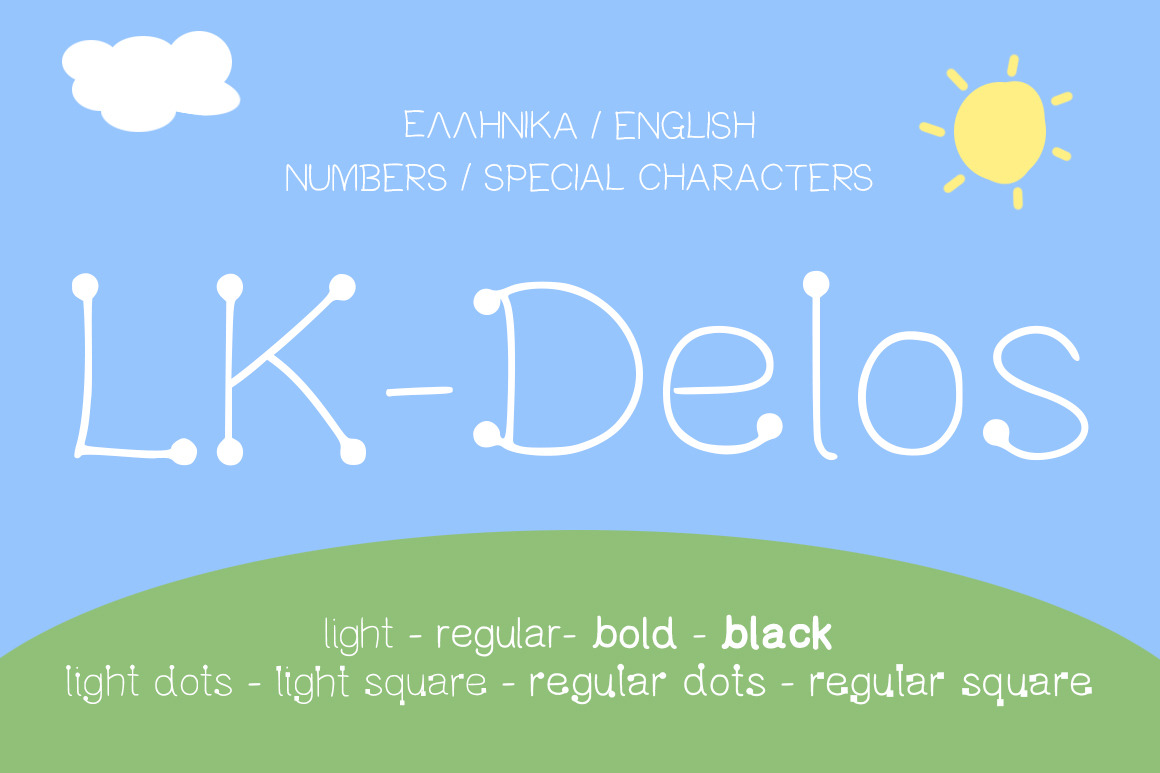
Delos Playful Kids Inspired Font
The font family is most suitable for headlines flyers and posters of all sizes, especially for children invitations, party posters, cartoon designs etc. Delos font is applicable for any type of graphic design in print graphics and perfect for logos, badges, t-shirts and other items like posters.
Included are
- Delos Light
- Delos Regular
- Delos Bold
- Delos Black
- Delos Light Dots
- Delos Regular Dots
- Delos Light Square
- Delos Regular Square
SUPPORT FOR GREEK CHARACTERS (see preview images)